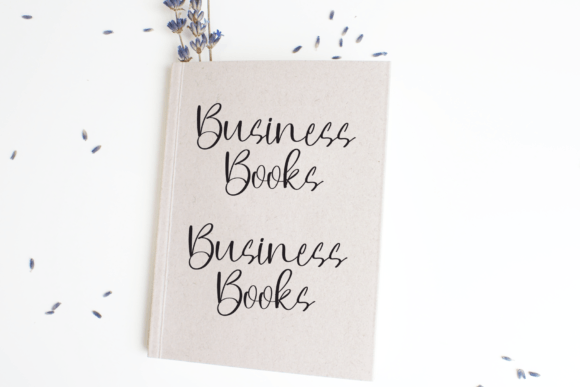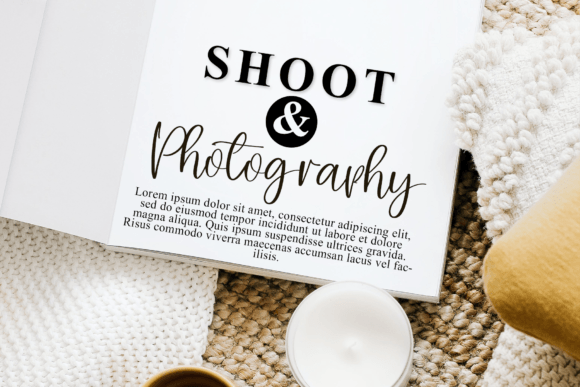
Handwriting Font
Handwriting is a casual and elegant script font. Fall in love with its incredibly versatile style and use it to create gorgeous wedding invitations, beautiful stationary art, eye-catching social media posts, and much more!